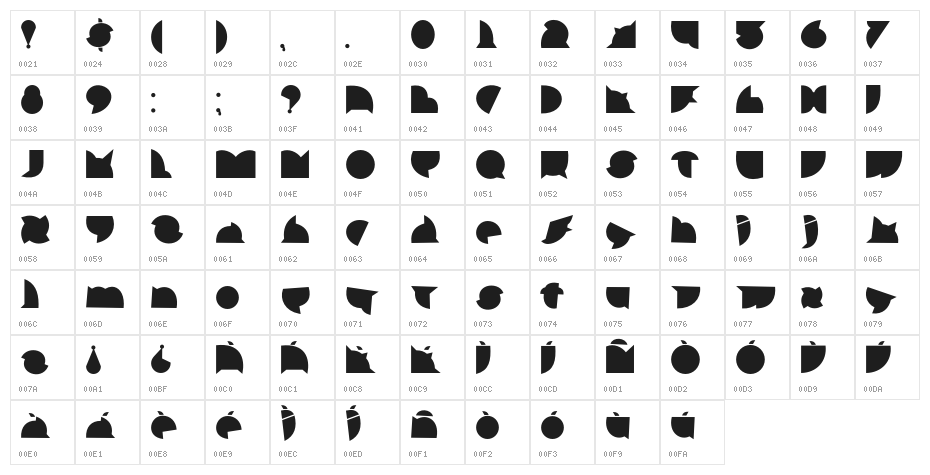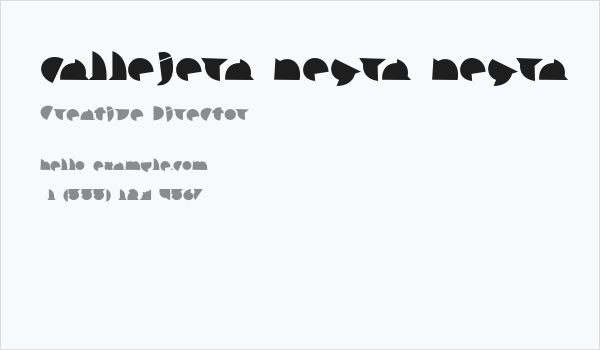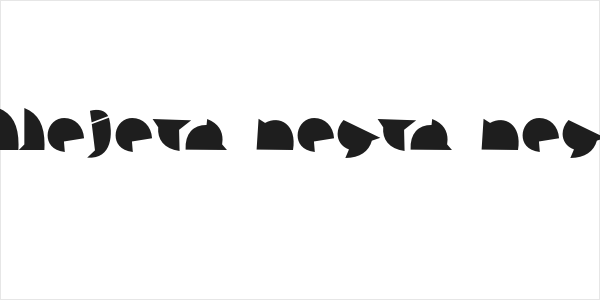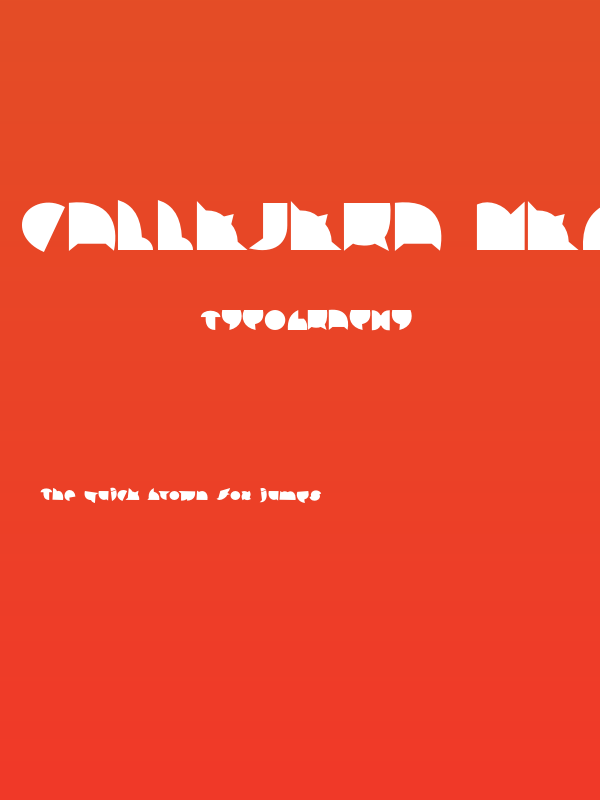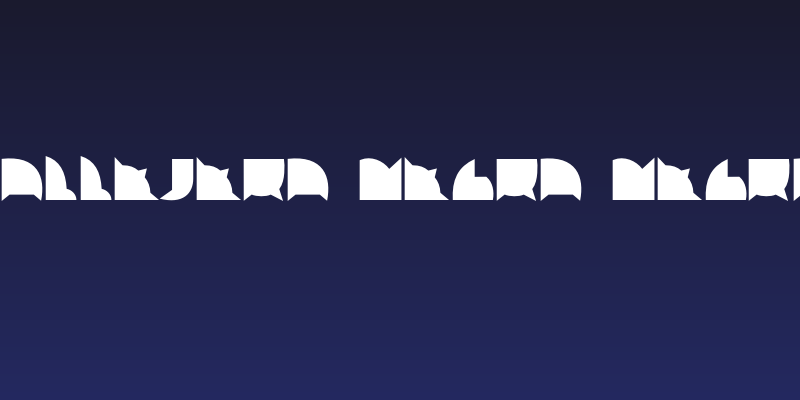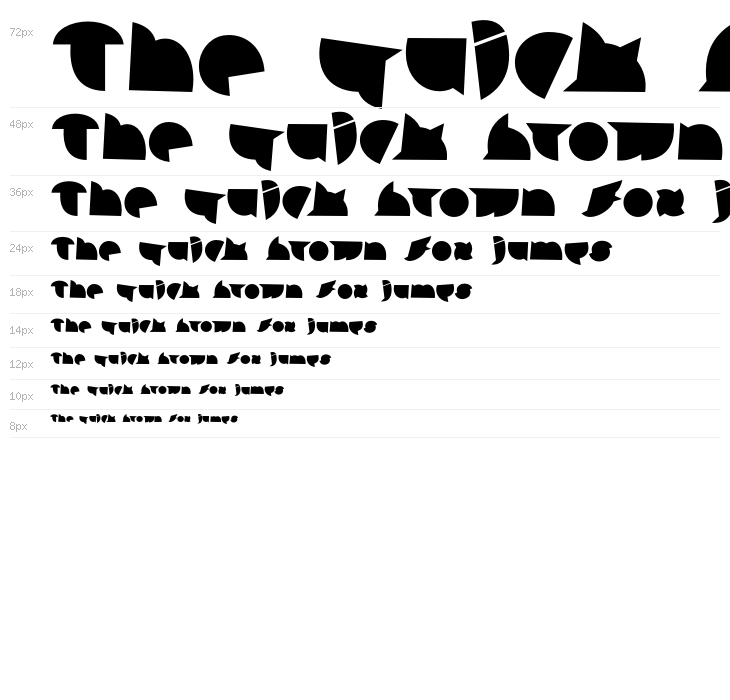
callejera negra negra Font
callejera negra negra Description
This bold and striking font features a highly geometric and abstract design, characterized by its use of solid black shapes to form each letter and symbol. The font has a unique, almost puzzle-like appearance, with each character composed of distinct, angular segments that fit together to create a cohesive whole. The uppercase and lowercase letters maintain a consistent style, with rounded edges and sharp angles that give the font a modern, edgy feel. Numbers and special characters follow the same design principles, ensuring uniformity across all elements. This font's boldness and distinctive style make it ideal for projects that require a strong visual impact.